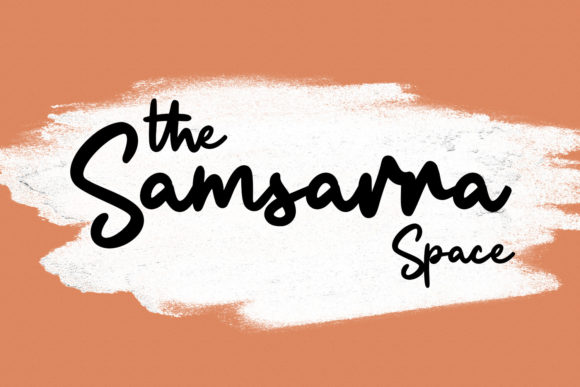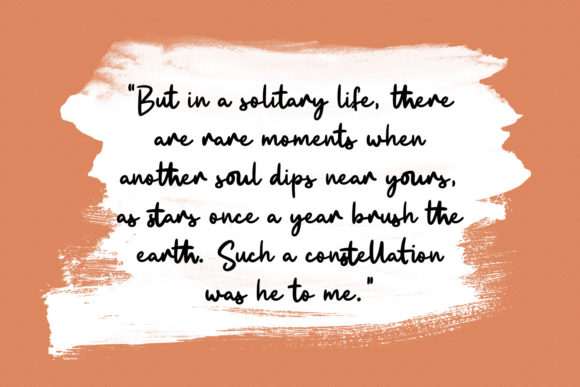
Deforest Font
db-ku.com - Script & Handwritten -- Deforest is a casual and quirky looking handwritten font. It will elevate a wide range of crafting ideas, from cards, to branding, labels and much more.